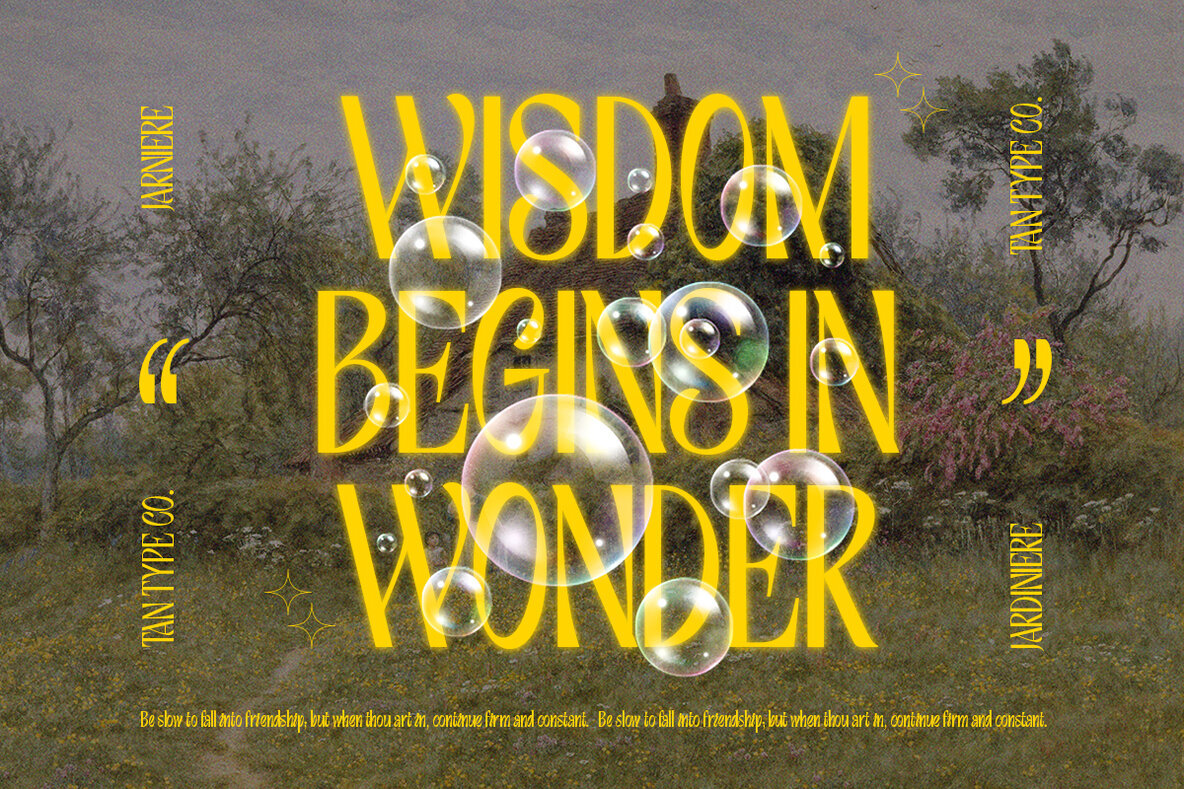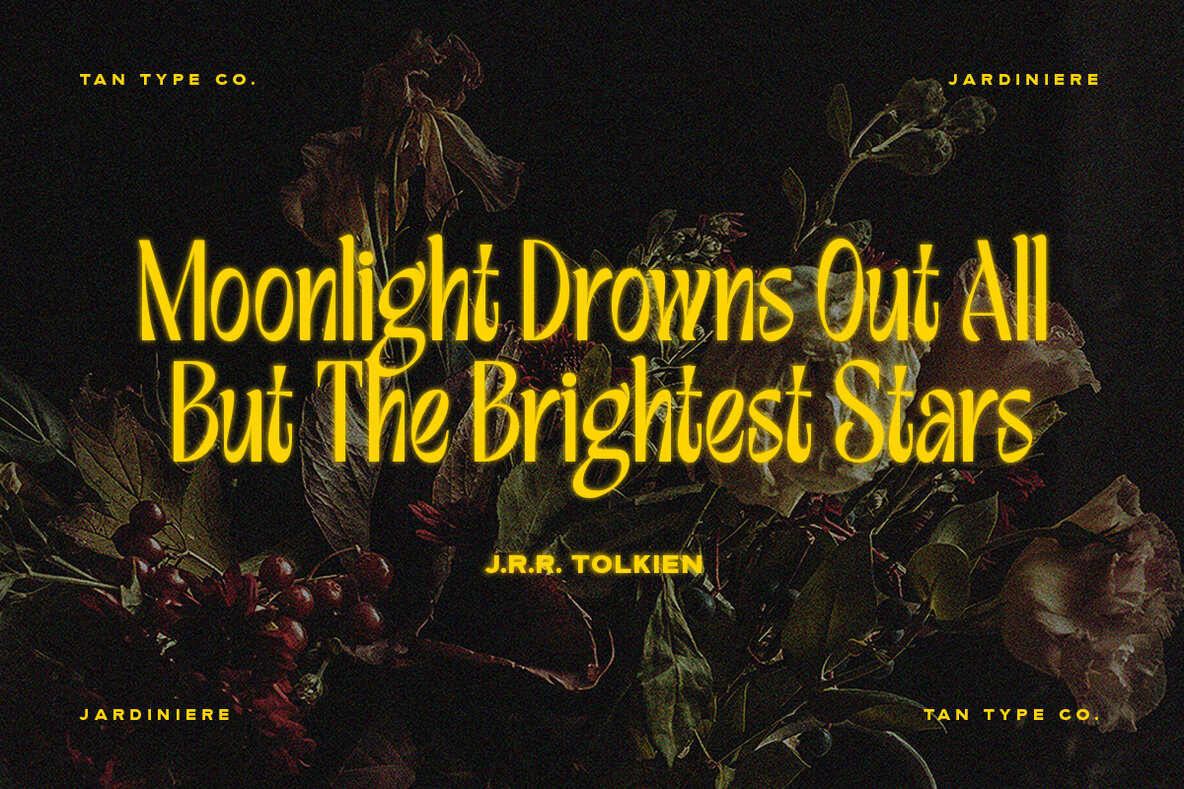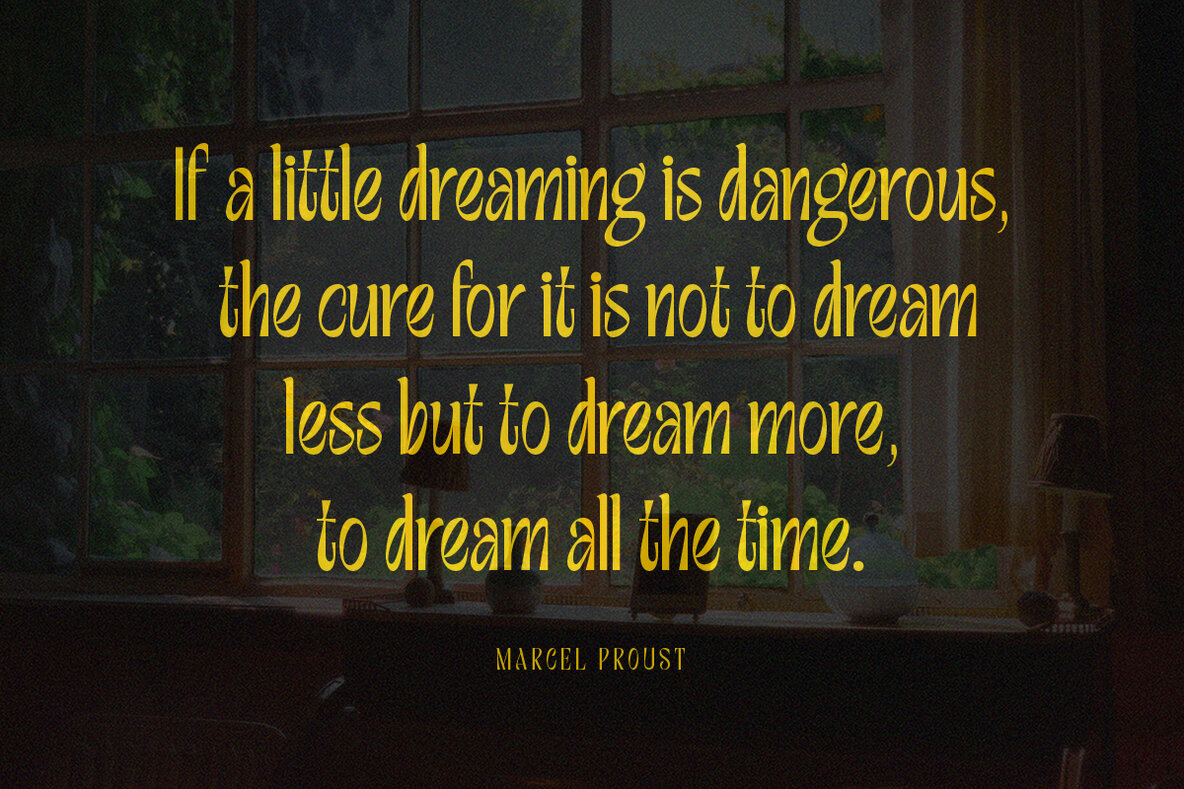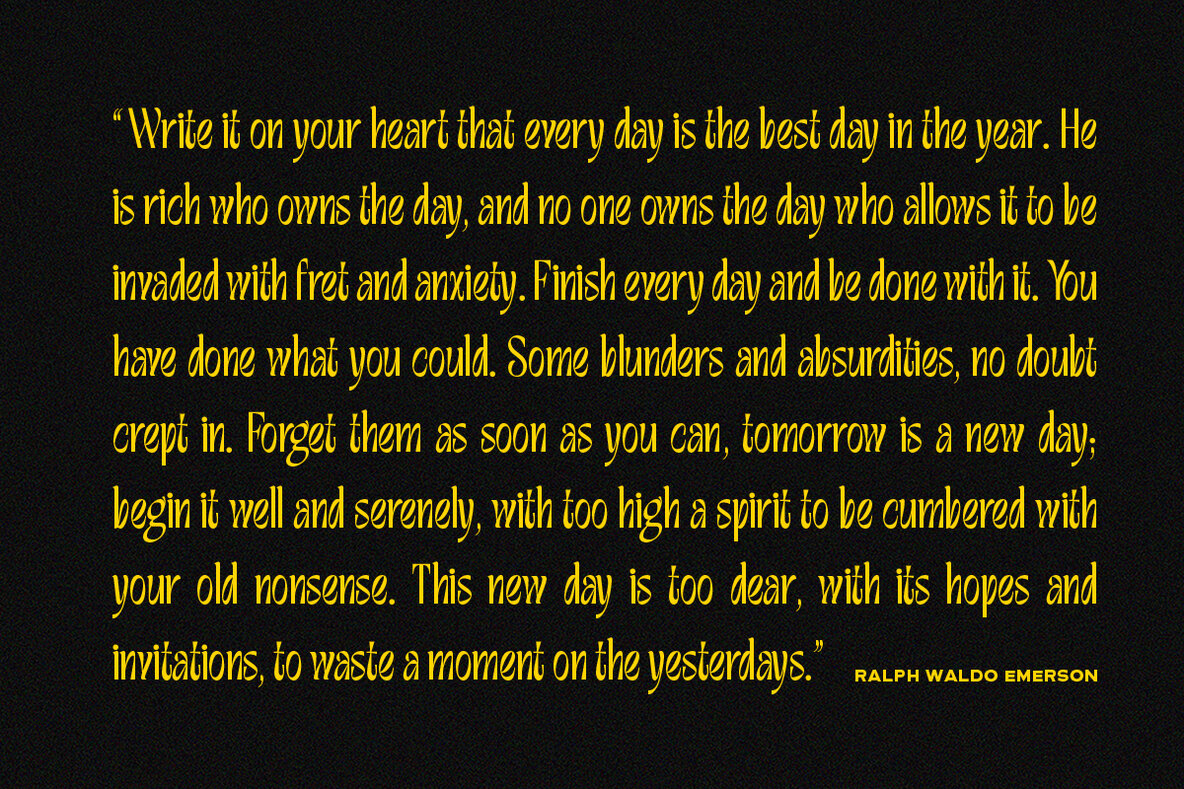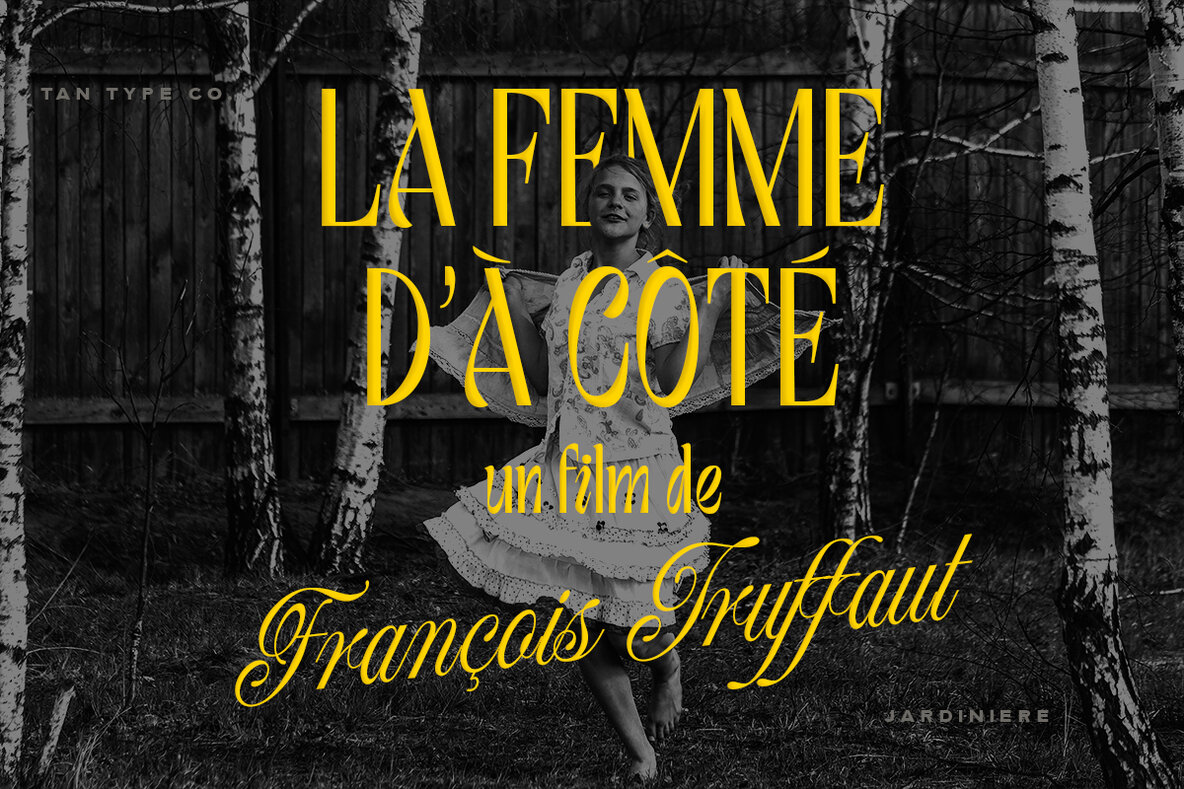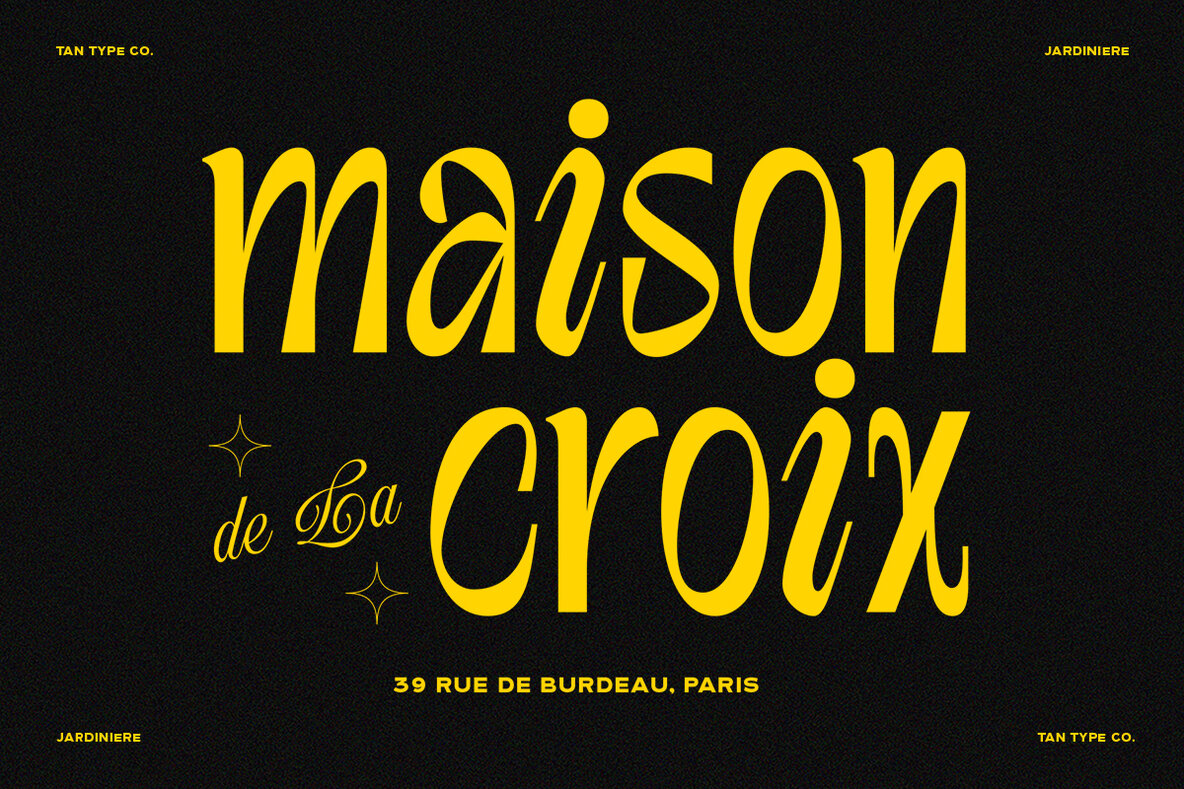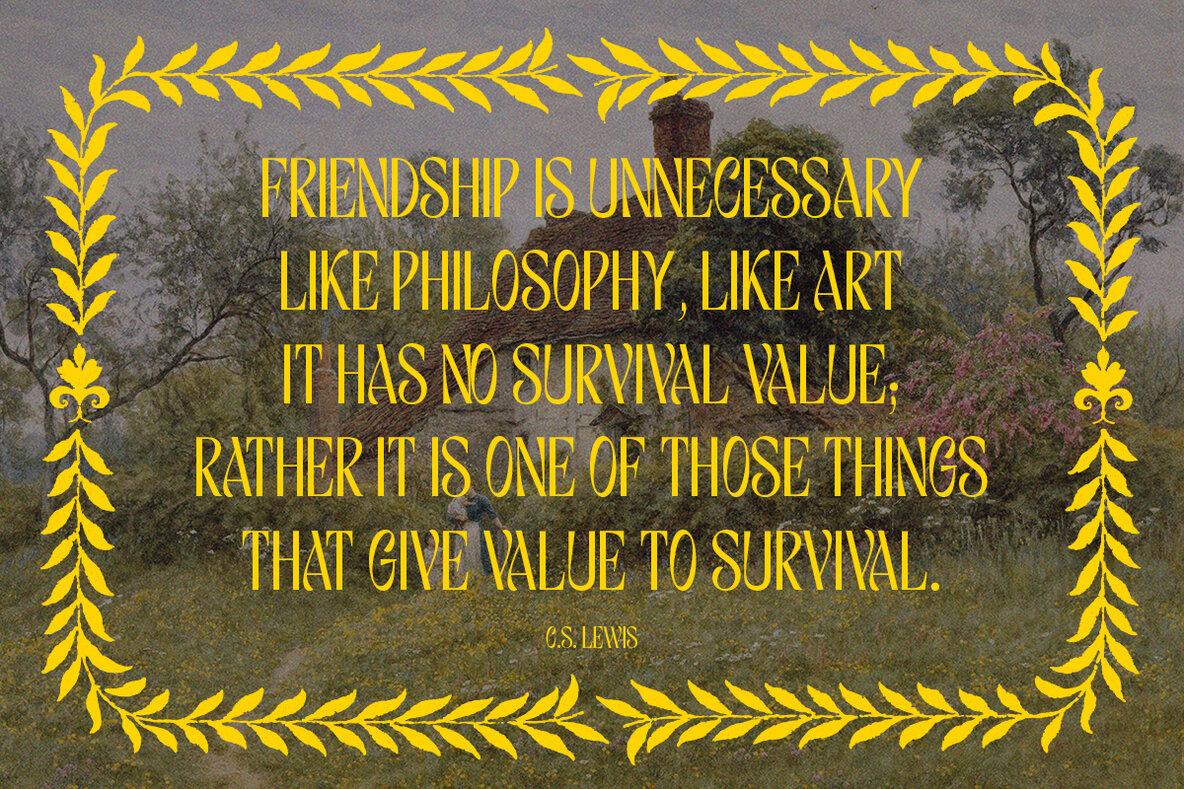
Tan Jardiniere Font
JARDINIERE is a mid-century inspired sans-serif font that embodies chic style with a quirky flair. Its clean, geometric lines and distinct visual character make it perfect for graphic and digital designers seeking a modern yet nostalgic aesthetic. The font's subtle retro vibe pairs well with contemporary designs, adding a unique touch without overwhelming the overall composition.
Ideal for branding, editorial designs, and digital art, JARDINIERE’s versatile nature supports various creative projects. Its legibility and stylish appeal make it suitable for both headlines and body text. Whether you are working on a sleek logo or an eye-catching advertisement, this font delivers a sophisticated twist to your design work.